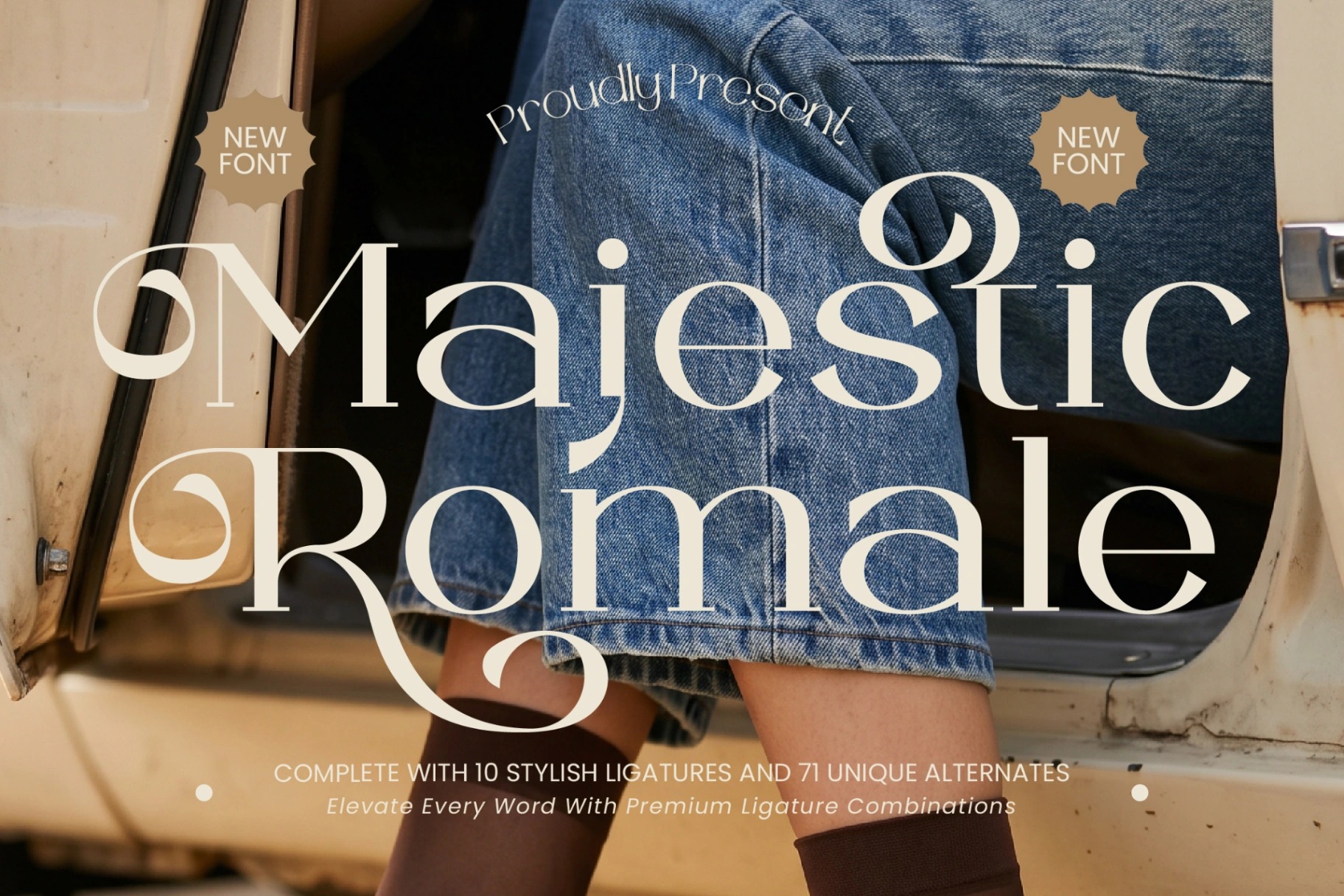
Majestic Romale – Elegant Serif Font
Majestic Romale – Elegant Serif Font is a premium-quality font developed to enhance your work with a polished, modern, and visually elevated look. Majestic Romale is a sophisticated serif display font that embodies timeless elegance, modern luxury, and refined craftsmanship. Carefully designed with graceful curves, distinctive high-contrast strokes, and beautifully sculpted letterforms, this typeface brings an elevated sense of style to every project.
Featuring a collection of stylish ligatures and unique alternates, Majestic Romale transforms ordinary typography into a premium visual experience. Each character is crafted to create harmonious letter combinations, allowing designers to achieve a custom and editorial-quality appearance effortlessly.
Inspired by luxury fashion publications, premium branding, and contemporary editorial design, Majestic Romale delivers a perfect balance between classic sophistication and modern aesthetics. Its distinctive details make it ideal for creating memorable identities that communicate exclusivity, confidence, and elegance.
Whether used for luxury branding, fashion campaigns, beauty products, editorial headlines, packaging, or wedding stationery, Majestic Romale provides a refined typographic presence that captures attention while maintaining exceptional readability.